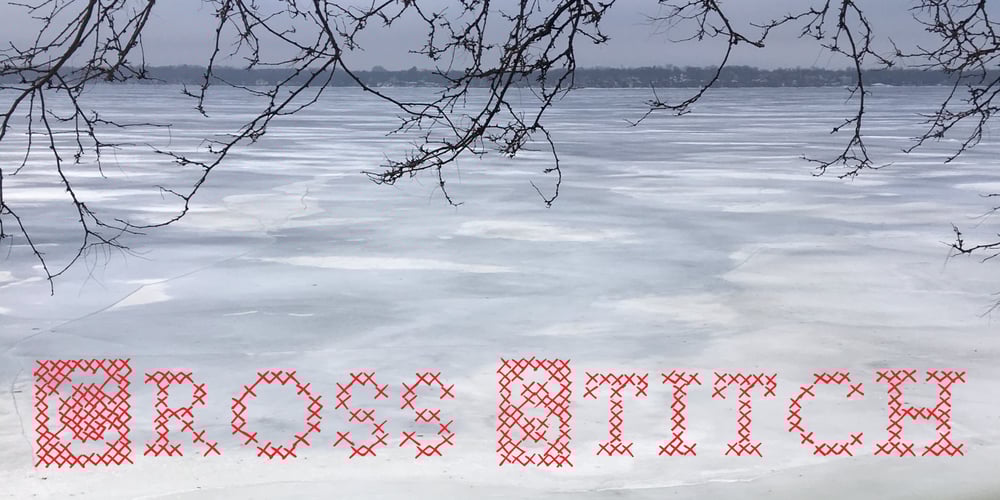
Cross Stitch
Cross Stitch font
Cross Stitch Font Family was designed by Rae Kaiser and published by Outside the Line. Cross Stitch contains 1 styles and family package options. A great font for crafters and scrapbookers. This font can be used to design and layout samplers, or to just create that Home Sweet Home look.